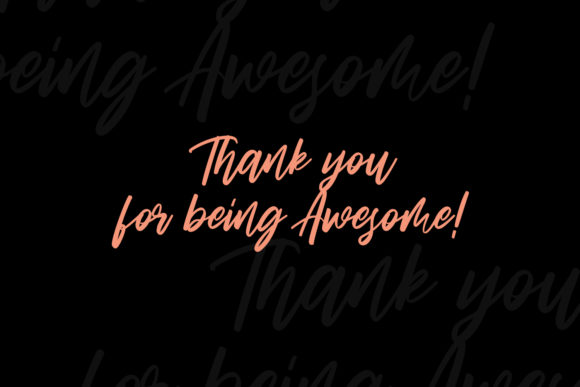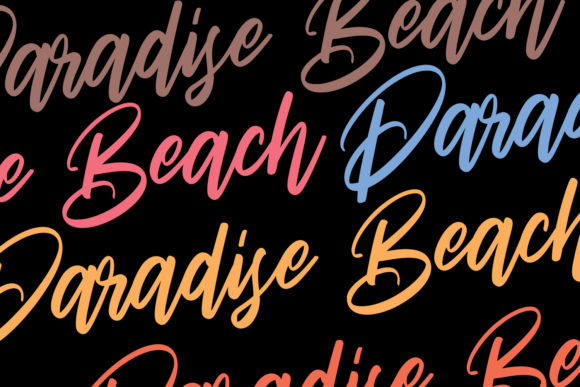
About Gillmoreths Font
“Gillmoreths” sounds like a fantastic fresh and modern script font that can bring a touch of contemporary elegance to your designs. With its dynamic and stylish appearance, this font is perfect for making your creative ideas come to life and creating spectacular designs.
By using “Gillmoreths” in your projects, you can add a sense of sophistication and modernity. Its script style gives it a flowing and expressive look, making your designs feel more dynamic and captivating.
This font’s versatility allows it to adapt to various design themes and styles. Whether you’re working on branding, packaging, social media graphics, or any other project, “Gillmoreths” can enhance the visual impact and add a touch of class.
With “Gillmoreths,” you can explore different creative possibilities. Experiment with various font sizes, styles, and colors to create visually striking and engaging compositions.
The script nature of “Gillmoreths” makes it a great choice for headlines, titles, or any other text element that needs to make a bold statement. Its fresh and modern look can elevate the aesthetics of your designs and grab the attention of your audience.
While unleashing your creativity, remember to maintain readability and legibility. Proper spacing and alignment between letters ensure that the text remains clear and easy to read, preserving the overall elegance of your designs.
In conclusion, “Gillmoreths” is a fresh and modern script font that can breathe life into your creative ideas and help you craft spectacular designs. Its dynamic and stylish appearance makes it a versatile choice for various design projects. Embrace the modernity of “Gillmoreths” and let it be the font that adds a touch of contemporary elegance to your creations, making them even more realistic and captivating to your audience.